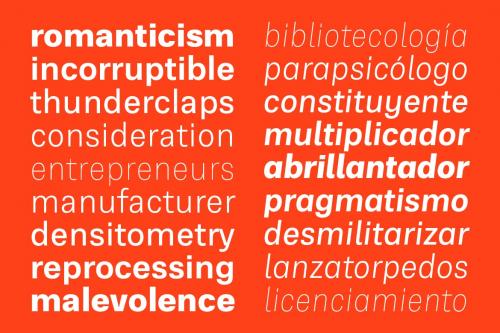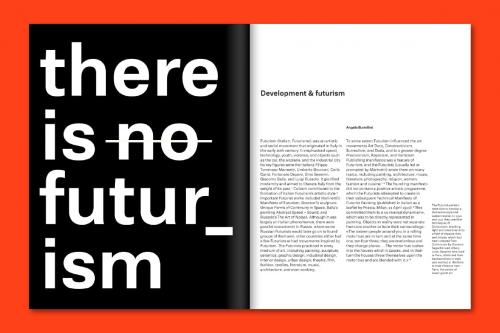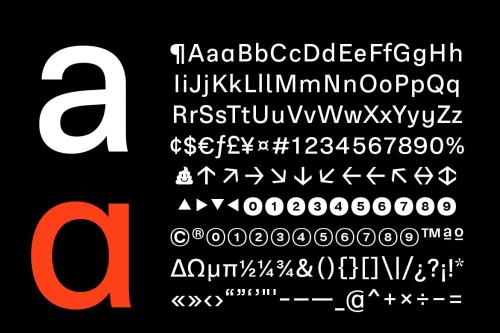
物理字体家族
Physis Font Family
**Physis** is a neo-grotesk typeface influenced by the Golden Age of the Swiss graphic design movement. It's a cleaner and more elegant reinterpretation of the grotesque faces with a more generous spacing that turns it into a workhorse font for screen or editorial projects. The Physis family includes five weights, ranging from Light through Black and five matching slanted forms.